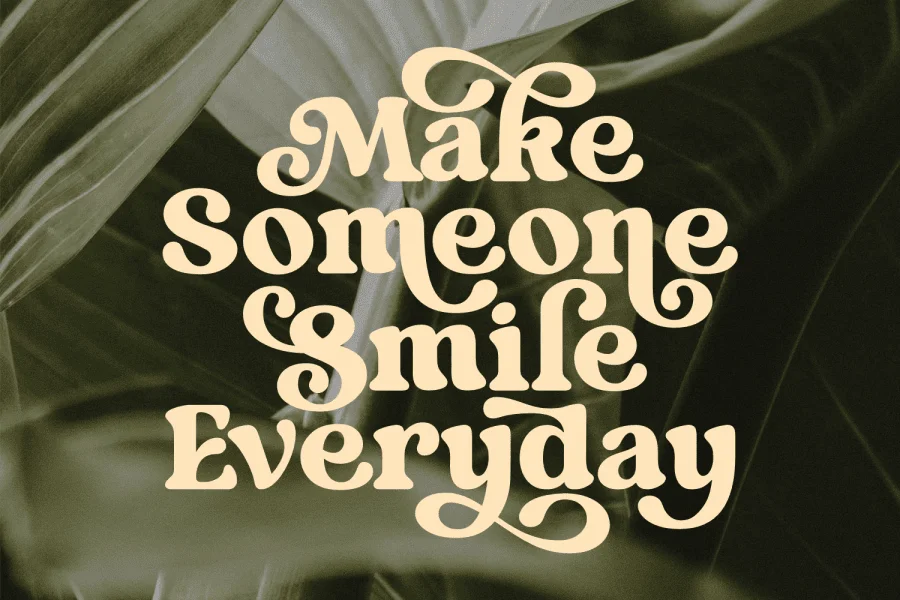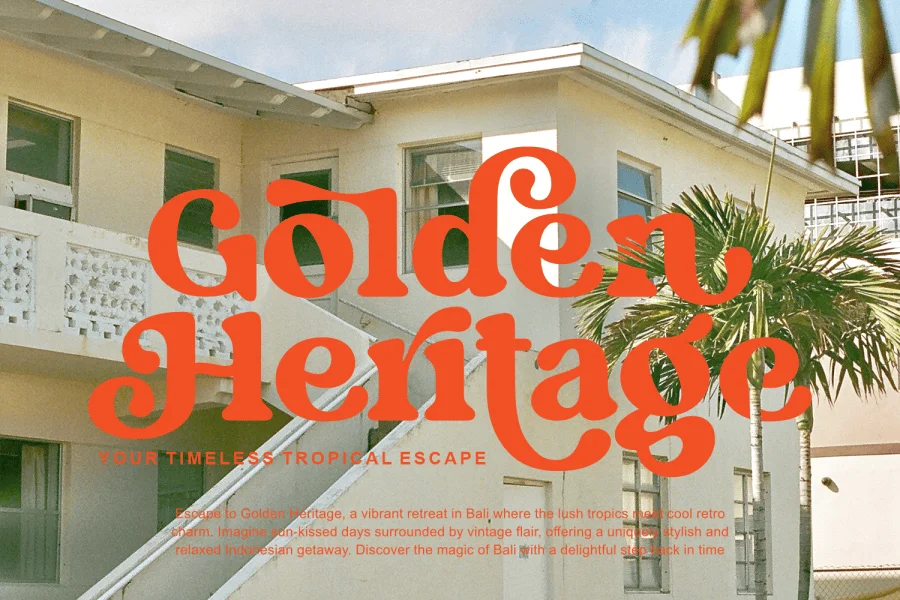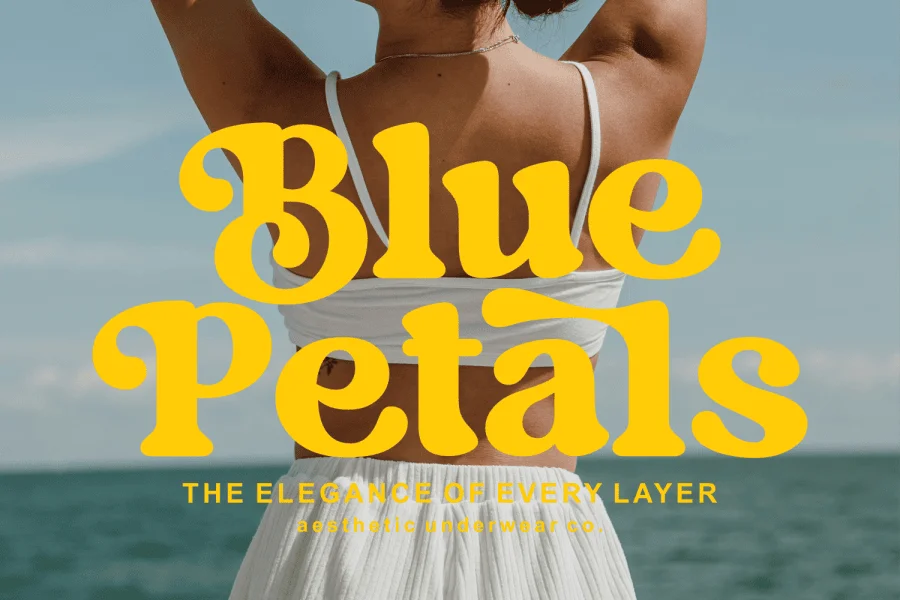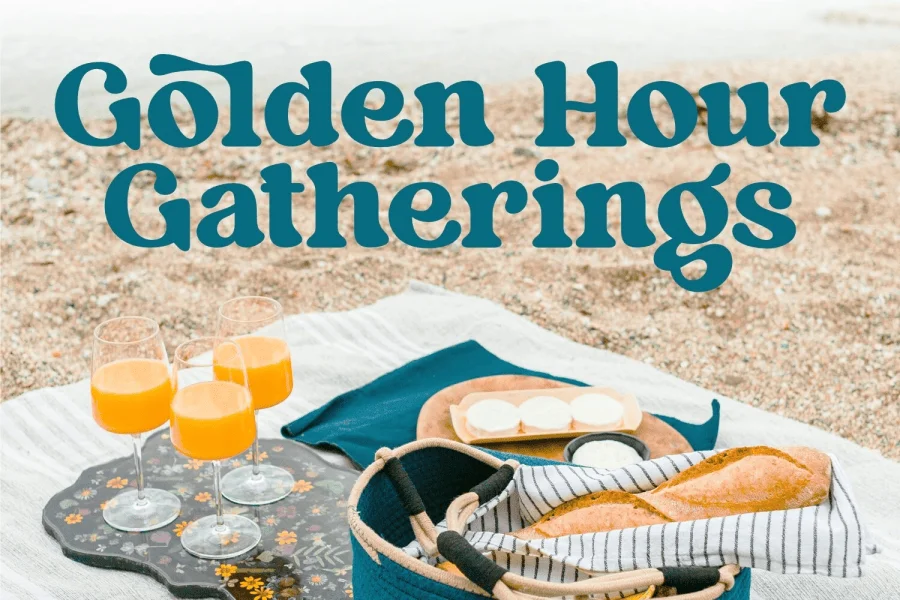
With an echoing resonance from the 90s, Tropical Magic will transport your designs back to a groovy era. This retro-fitted serif font carries bold letterforms, thick serifs, and curvaceous edges, whispering of bygone lettering artistry. Ideal for infusing a touch of vintage charm into designs like posters, album covers, and brand identities, Tropical Magic playfully interweaves a dash of character and a spurt of fun. Indulge in this nostalgic journey and let Tropical Magic weave its enchanting spell across your creative canvases.